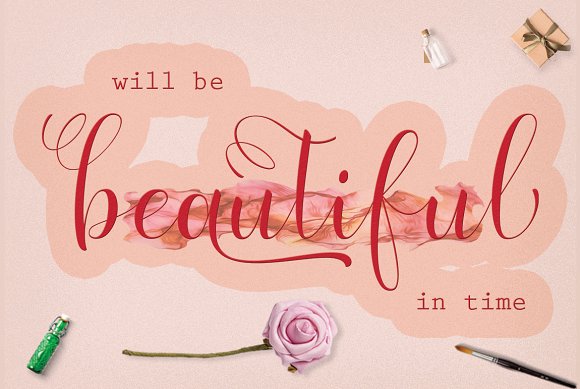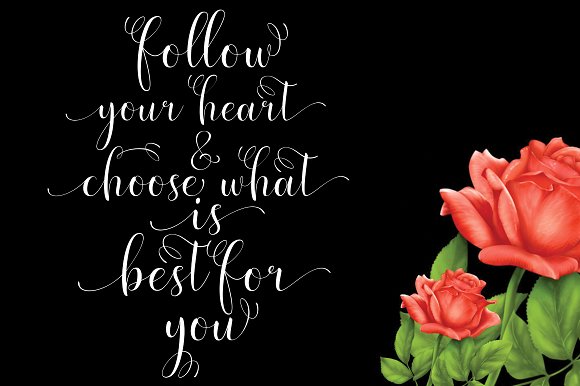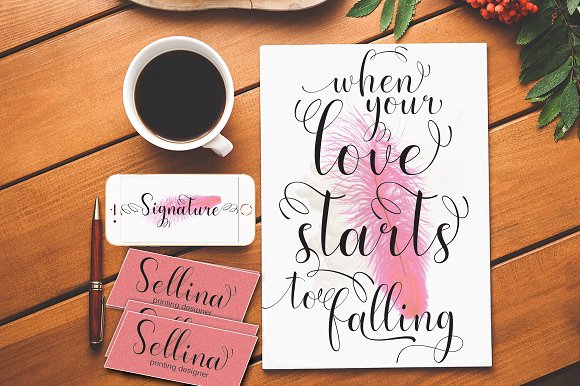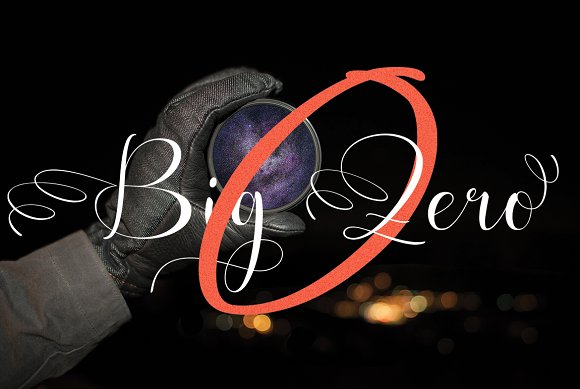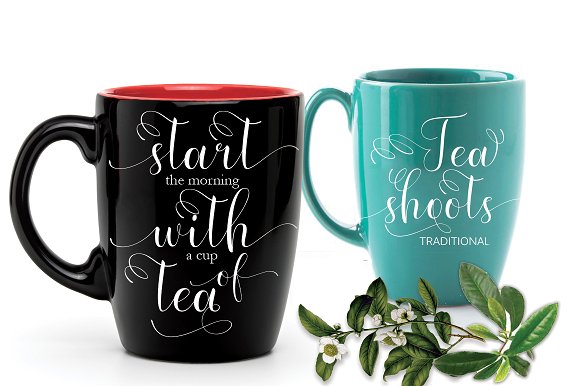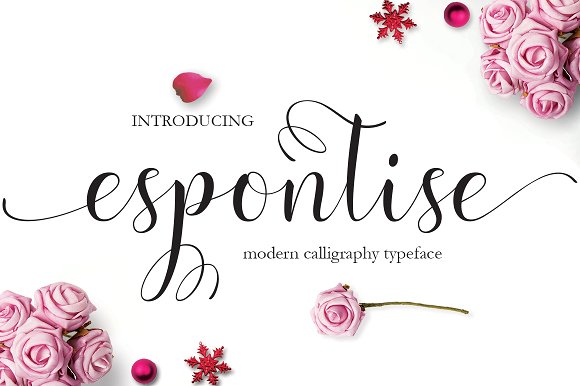
Espontise Script Font
Espontise Script : A script that is so beautiful with gorgeous grounds, and furnished with fine lines are perfect for use many purposes. such as title, signature, logo, correspondence, wedding invitations, letterhead, signage, labels, newsletters, posters, badges, Branding, Greeting Cards, etc.